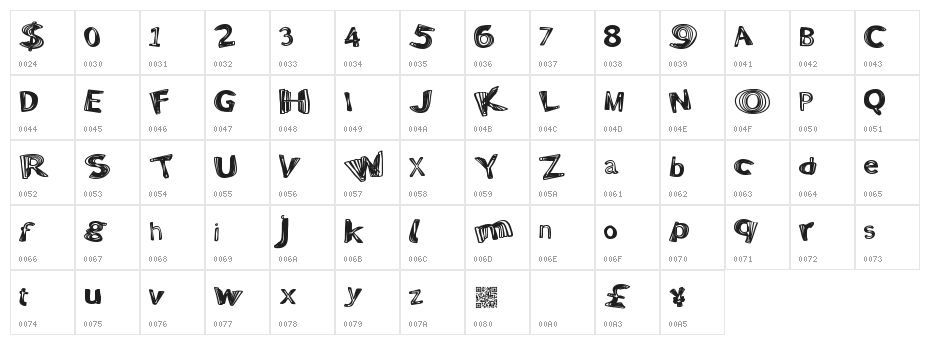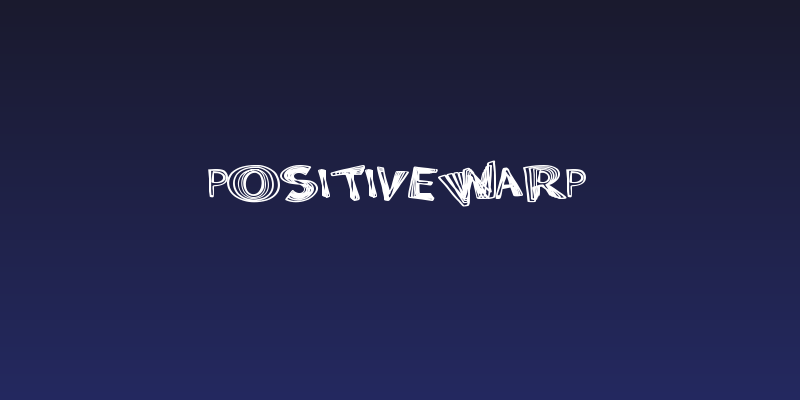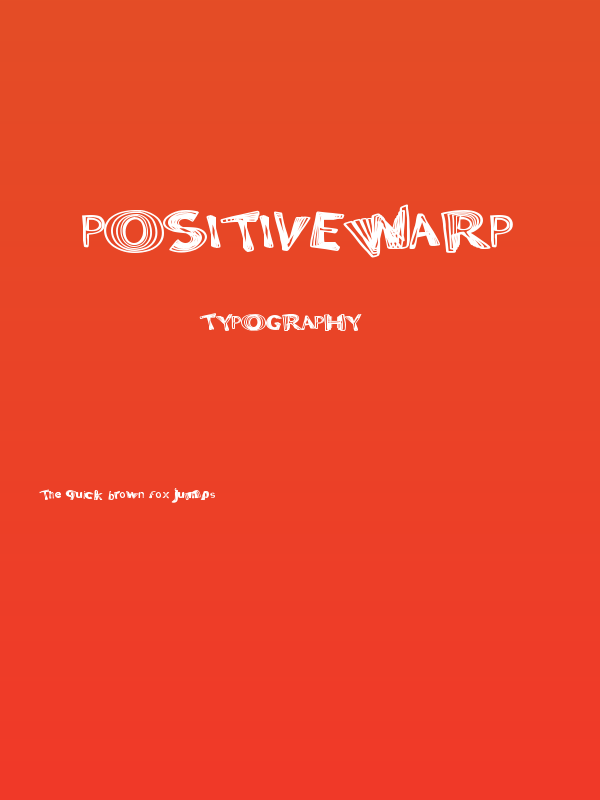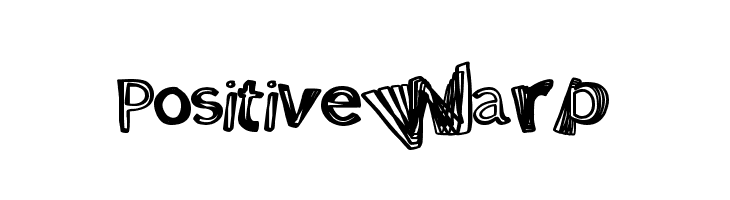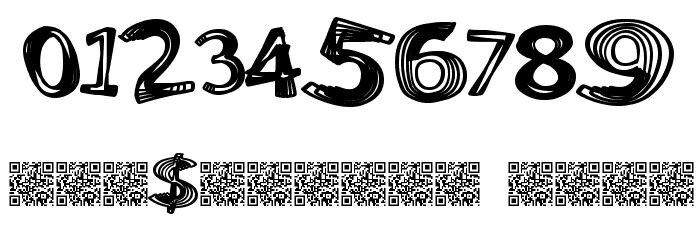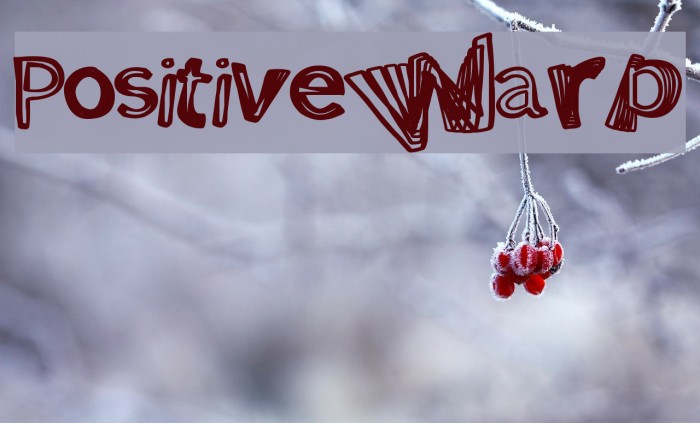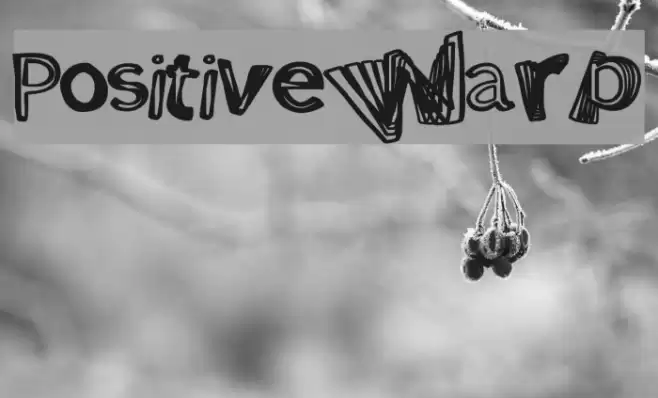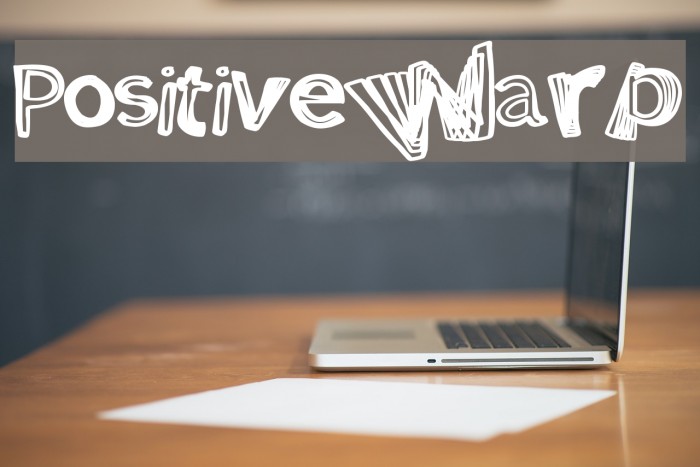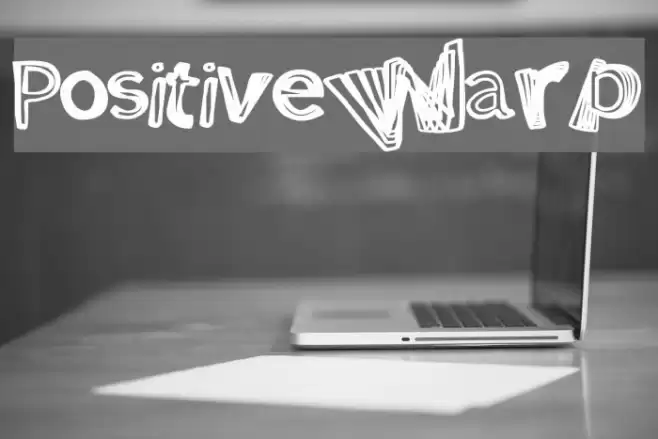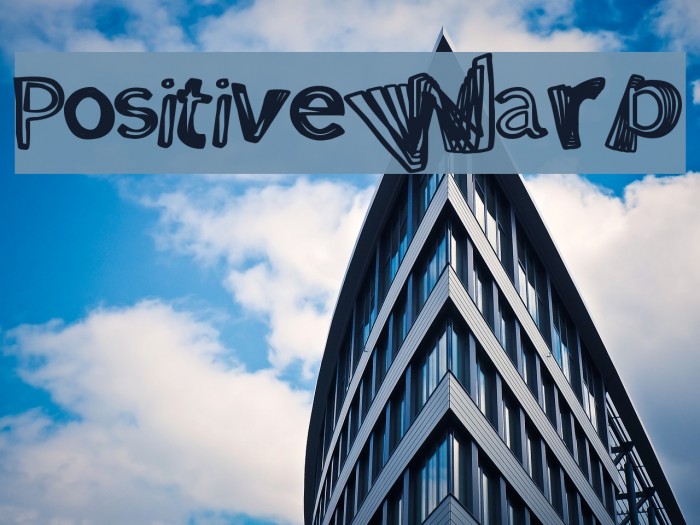
PositiveWarp Font
PositiveWarp Description
This font features a playful and dynamic style with a hand-drawn appearance. Each character is uniquely designed with a combination of bold outlines and intricate inner patterns, creating a sense of movement and energy. The letters have a whimsical, almost cartoonish quality, making them stand out with their bold and artistic flair. The font is highly decorative, with varying stroke widths and a sense of depth achieved through the use of shadowing and layering effects. It captures attention with its vibrant and lively design, making it ideal for creative and informal applications.
| Proposed Projects | Ideal for children's book covers, playful posters, creative branding, and eye-catching headlines. |